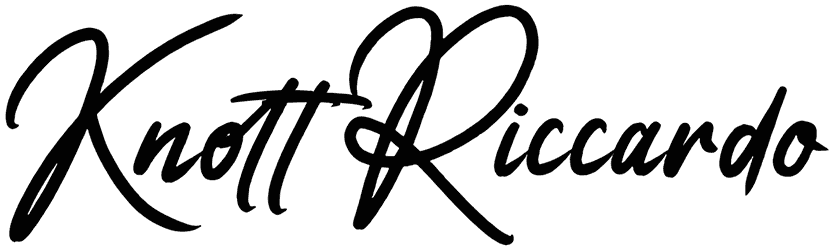
Knott Riccardo Font
If ever there was a font that could succeed in conveying personal emotions, Knott Riccardo would be it. This handwritten font has precise lines that give it a classic look and can stand out in long or short content.
Using this signature font, you can create informal designs reflecting your intimacy. With this font in hand, you can find the best ways to implement your ideas and design invitations or wedding cards most beautifully.